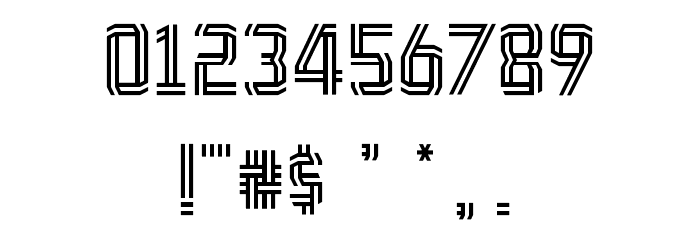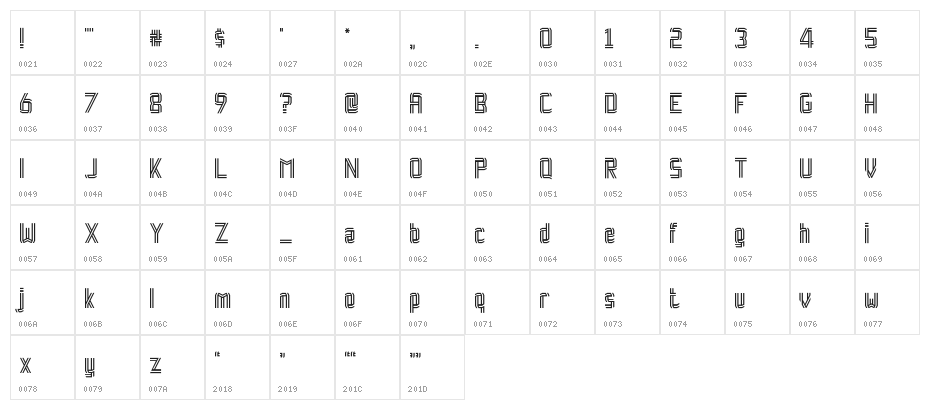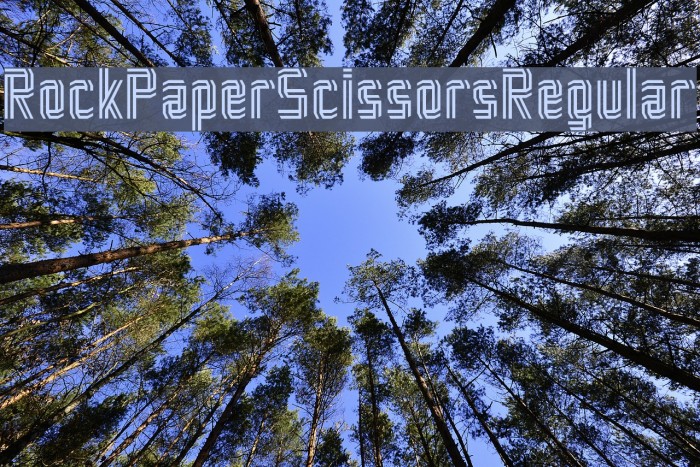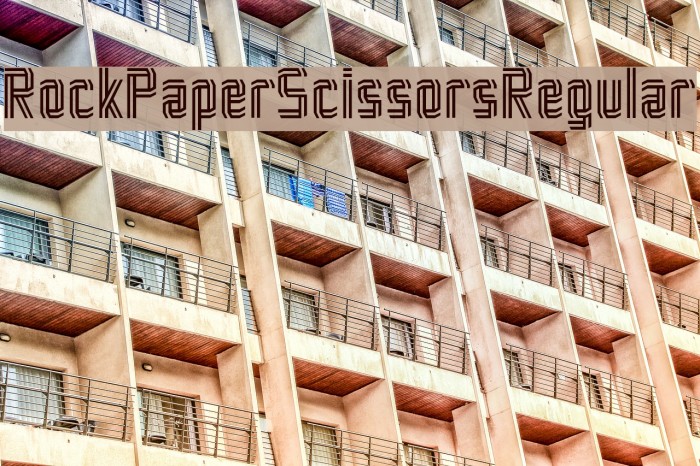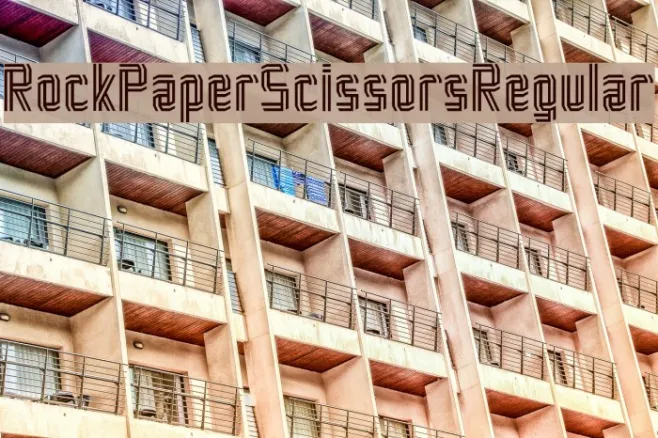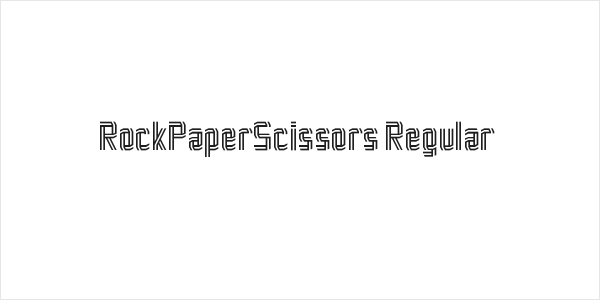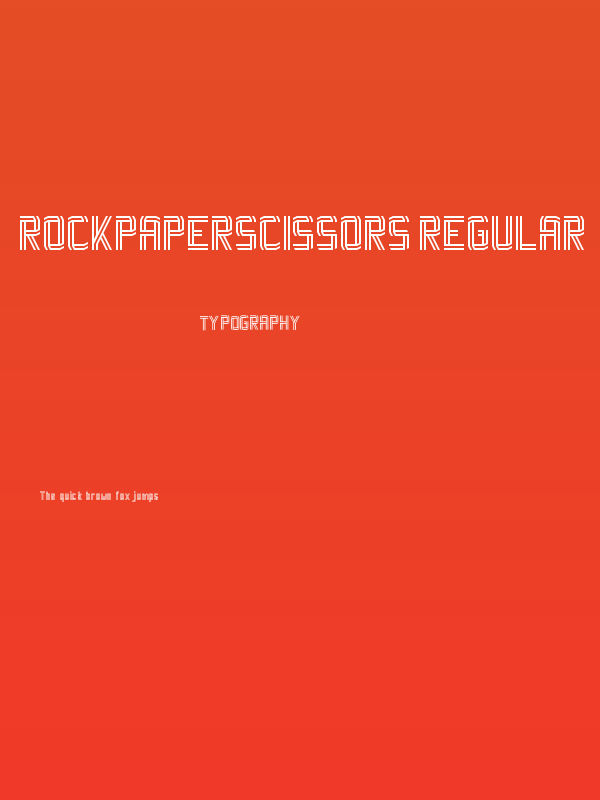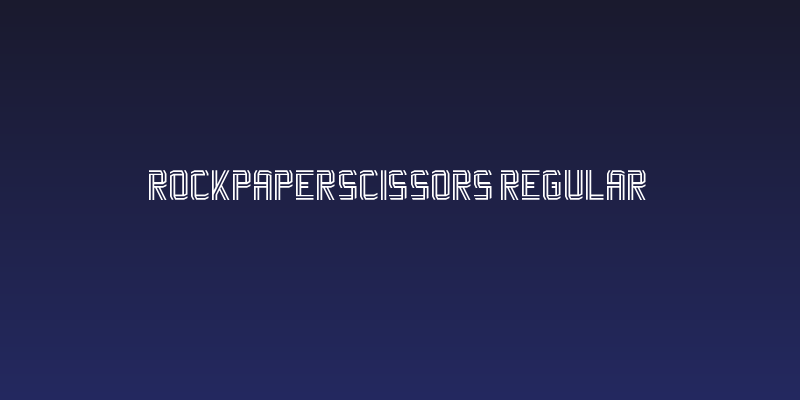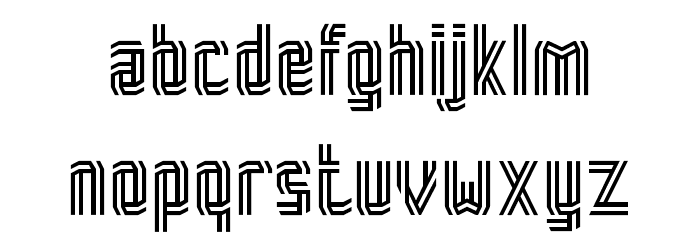
RockPaperScissors-Regular Font
RockPaperScissors-Regular Description
This font features a unique, geometric design with a modern twist. Each character is constructed with multiple parallel lines, creating a layered effect that adds depth and dimension. The uppercase and lowercase letters maintain a consistent style, with sharp angles and clean lines. Numbers and special characters are designed to match the overall aesthetic, ensuring a cohesive look across all text elements. The font's structure is both bold and intricate, making it stand out in any design project.
| Proposed Projects | Ideal for branding, posters, and headlines where a striking and modern look is desired. |